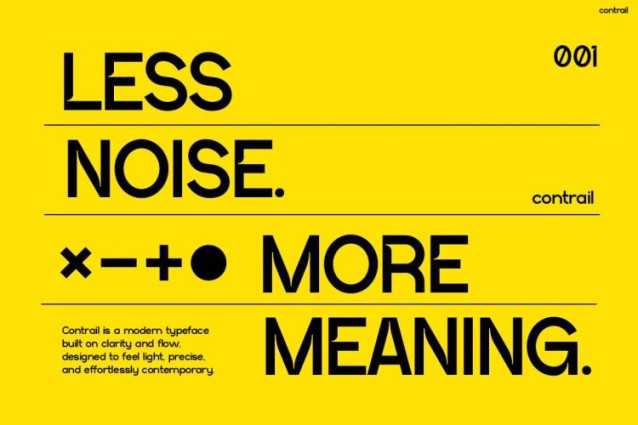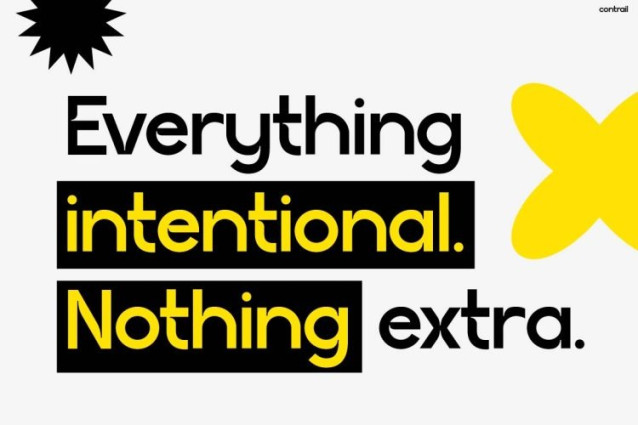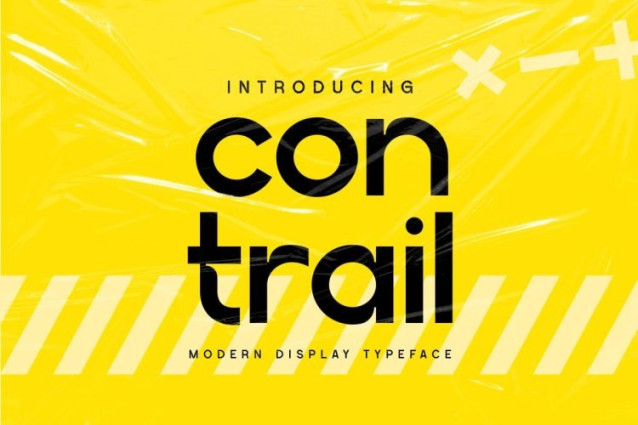
Contrail Font
Contrail Font is a bold and modern display typeface designed to deliver clarity, intention, and strong visual impact. From the very first impression, this font communicates confidence and control. Its clean geometric forms, sharp edges, and balanced proportions create a futuristic aesthetic that feels both minimal and expressive. Moreover, every character is carefully crafted to reduce visual noise while increasing meaning, making text look deliberate and powerful. CONTRAIL stands out because it blends modern typography trends with functional readability. As shown in the previews, it performs exceptionally well in high-contrast layouts, bold color compositions, and contemporary design systems. Therefore, this font is not only visually striking but also highly practical for real-world creative use.
Futuristic Font CONTRAIL is built for designers who value structure, clarity, and modern aesthetics. First, its strong letterforms ensure headlines look assertive and professional. At the same time, the spacing and consistency allow messages to remain clear and readable across different formats. In addition, this font adapts seamlessly to digital platforms, including websites, social media graphics, and mobile interfaces. CONTRAIL works beautifully in editorial layouts, fashion visuals, architectural presentations, posters, and branding materials. Because of its versatility, it supports both minimalist designs and expressive compositions. Whether you aim to communicate innovation, control, or creative confidence, this font delivers a polished and future-forward tone.